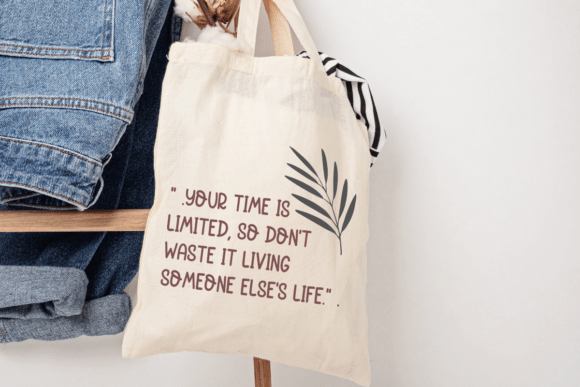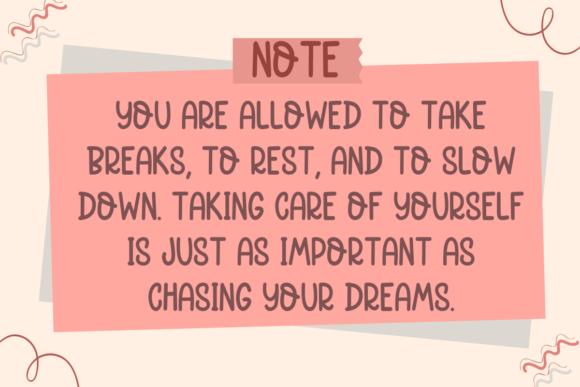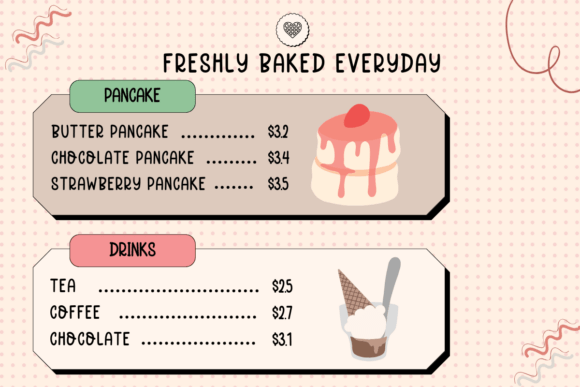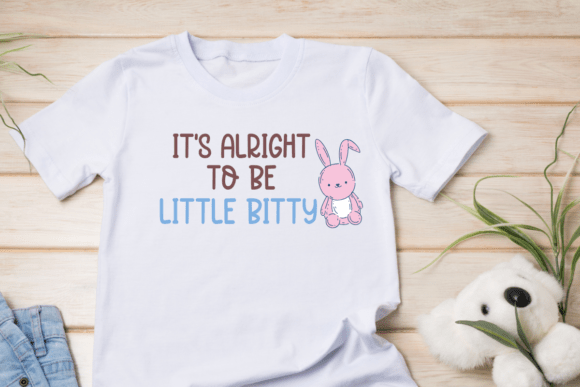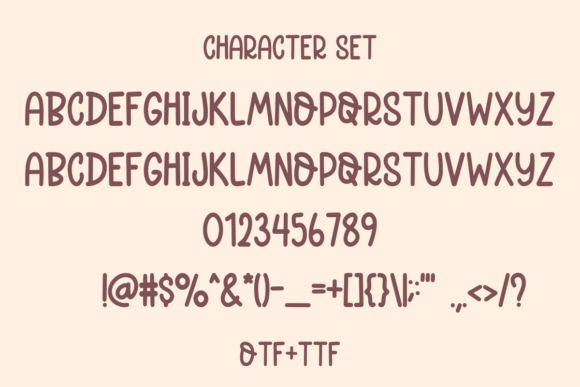
Introducing Gradient Display Font: The Perfect Addition to Your Creative Projects
Are you a crafter, designer, or maker looking for a font that adds a touch of fun and playfulness to your projects? Look no further than Gradient Display Font! This delightful handwritten font is perfect for a wide range of creative endeavors, from crafts and planners to KDP, stickers, and greeting cards. Its cute and friendly style makes it an excellent choice for Cricut, sublimation, and DIY projects.
What Makes Gradient Display Font So Special?
Gradient Display Font stands out from the crowd with its unique blend of playfulness and charm. Its handwritten style gives it a personal and approachable feel, making it perfect for projects that require a touch of warmth and personality. Whether you’re creating crafts, planners, or other DIY projects, this font is sure to add a dash of fun and whimsy.
Perfect for Crafters, Designers, and Makers
Gradient Display Font is an ideal choice for crafters, designers, and makers who want to add a personal touch to their projects. Its versatility makes it suitable for a wide range of applications, including:
- Crafts: Use Gradient Display Font to add a playful touch to your craft projects, such as scrapbooking, card making, and DIY decorations.
- Planners: Add a fun and friendly style to your planners and journals with Gradient Display Font.
- KDP: Create eye-catching book covers and interior designs with this delightful font.
- Stickers: Use Gradient Display Font to create fun and colorful stickers for your crafts, planners, or other projects.
- Greeting Cards: Add a personal touch to your greeting cards with this charming font.
Why Gradient Display Font Works Great for Cricut, Sublimation, and Creative DIY Projects
Gradient Display Font is a perfect match for Cricut, sublimation, and creative DIY projects due to its unique characteristics:
- Cricut: The font’s playful style and clear lettering make it ideal for cutting machines like Cricut.
- Sublimation: Gradient Display Font works beautifully with sublimation printing, allowing you to create vibrant and colorful designs.
- Creative DIY Projects: The font’s versatility and charm make it perfect for a wide range of DIY projects, from home decor to personalized gifts.
Tips for Using Gradient Display Font in Your Projects
To get the most out of Gradient Display Font, here are some tips to keep in mind:
- Experiment with colors: Gradient Display Font looks great in a variety of colors, so don’t be afraid to try out different color combinations.
- Mix and match: Combine Gradient Display Font with other fonts to create unique and interesting visual effects.
- Use it sparingly: While Gradient Display Font is perfect for adding a touch of fun and playfulness, it’s best to use it sparingly to avoid overwhelming your design.
Gradient Display Font is a fun and playful handwritten font that’s perfect for crafters, designers, and makers. Its cute and friendly style makes it an excellent choice for a wide range of creative projects, from crafts and planners to KDP, stickers, and greeting cards. With its versatility and charm, Gradient Display Font is sure to become a staple in your design toolkit.